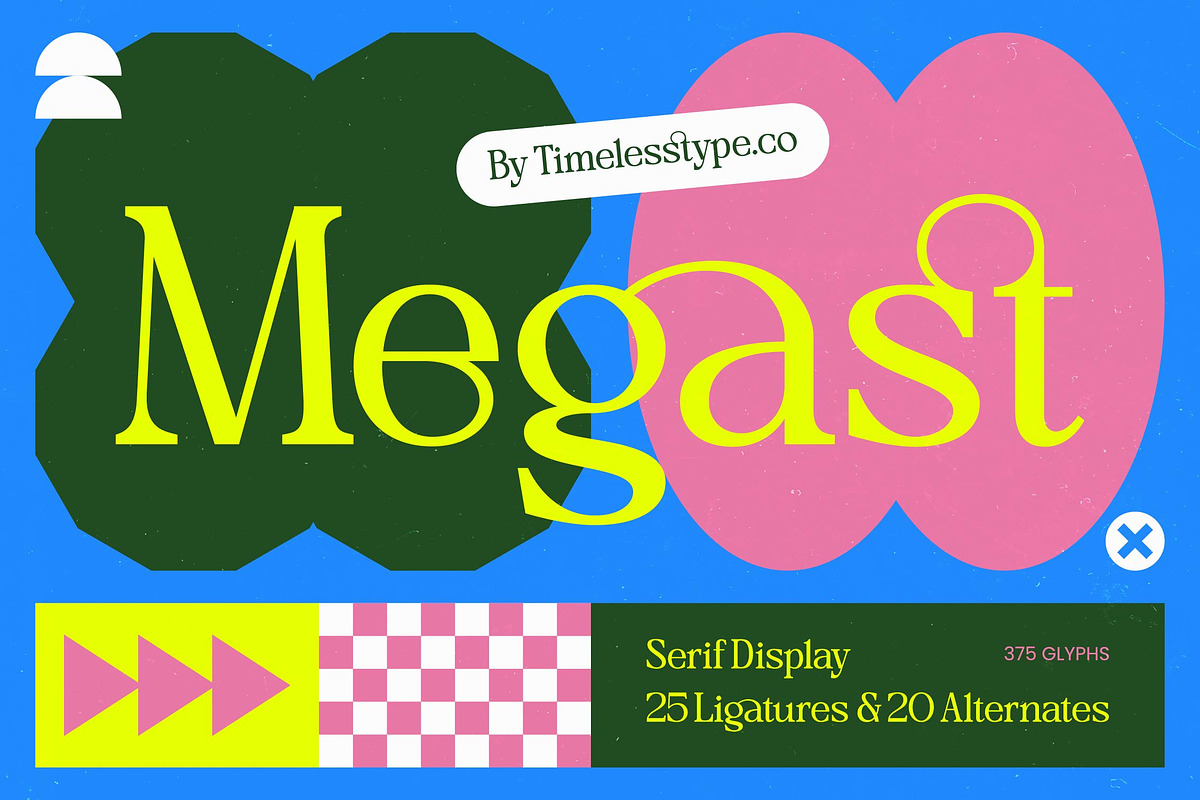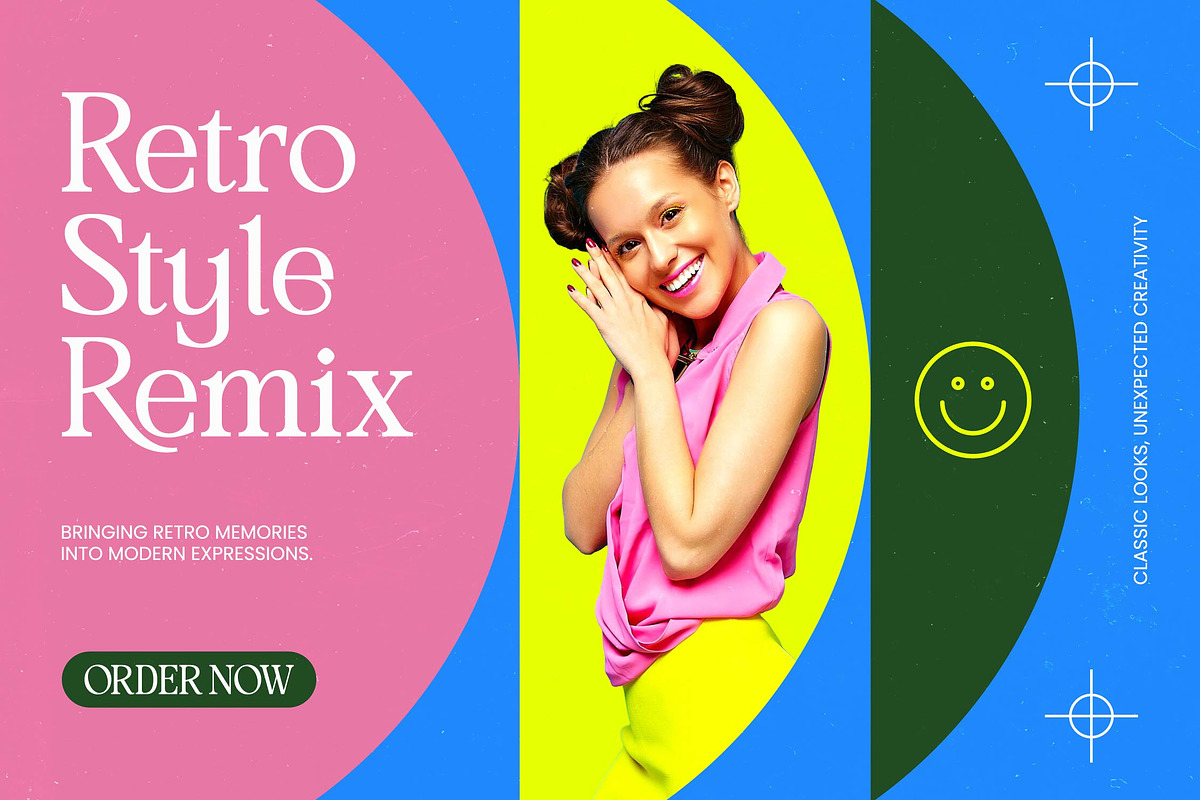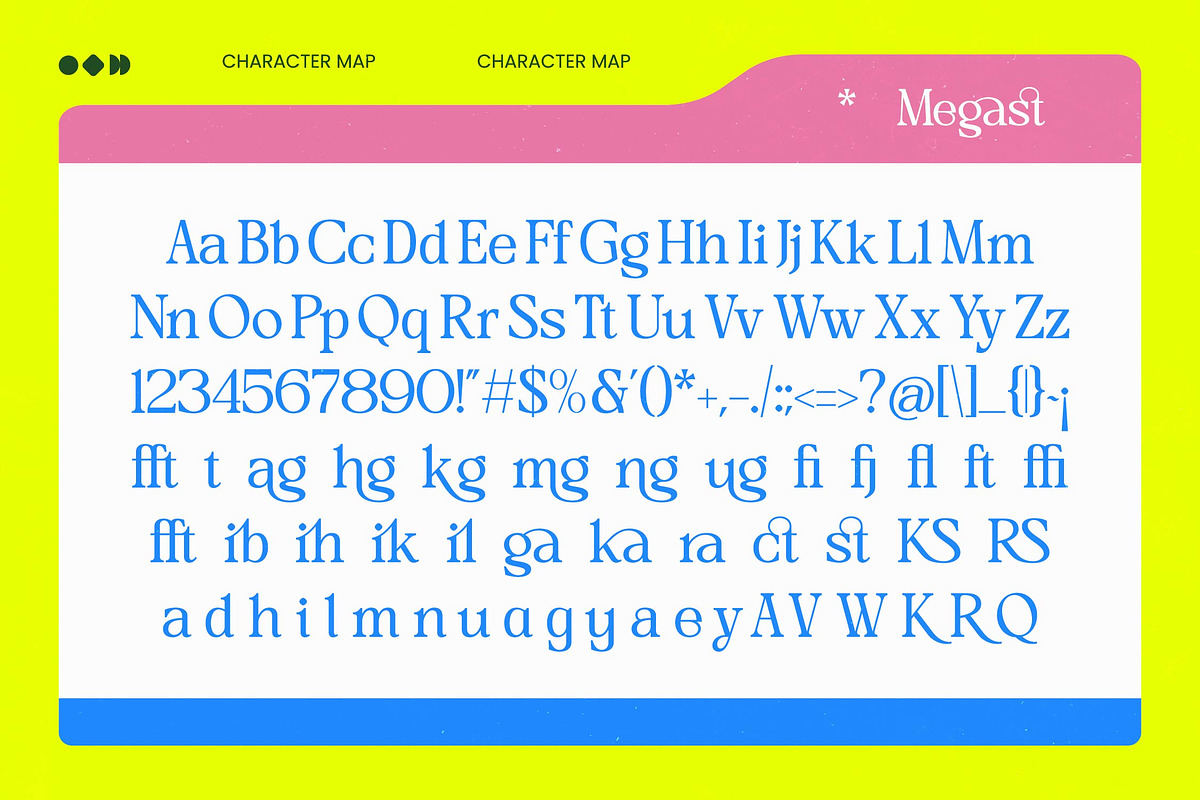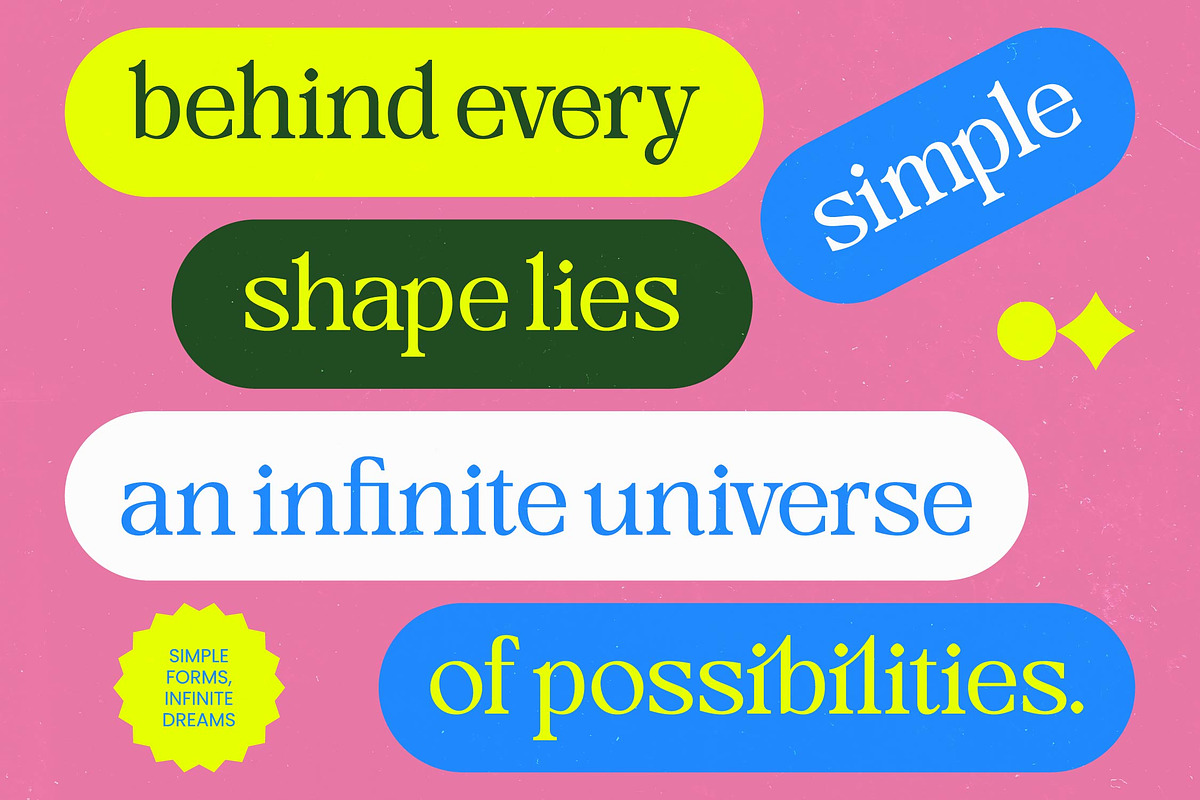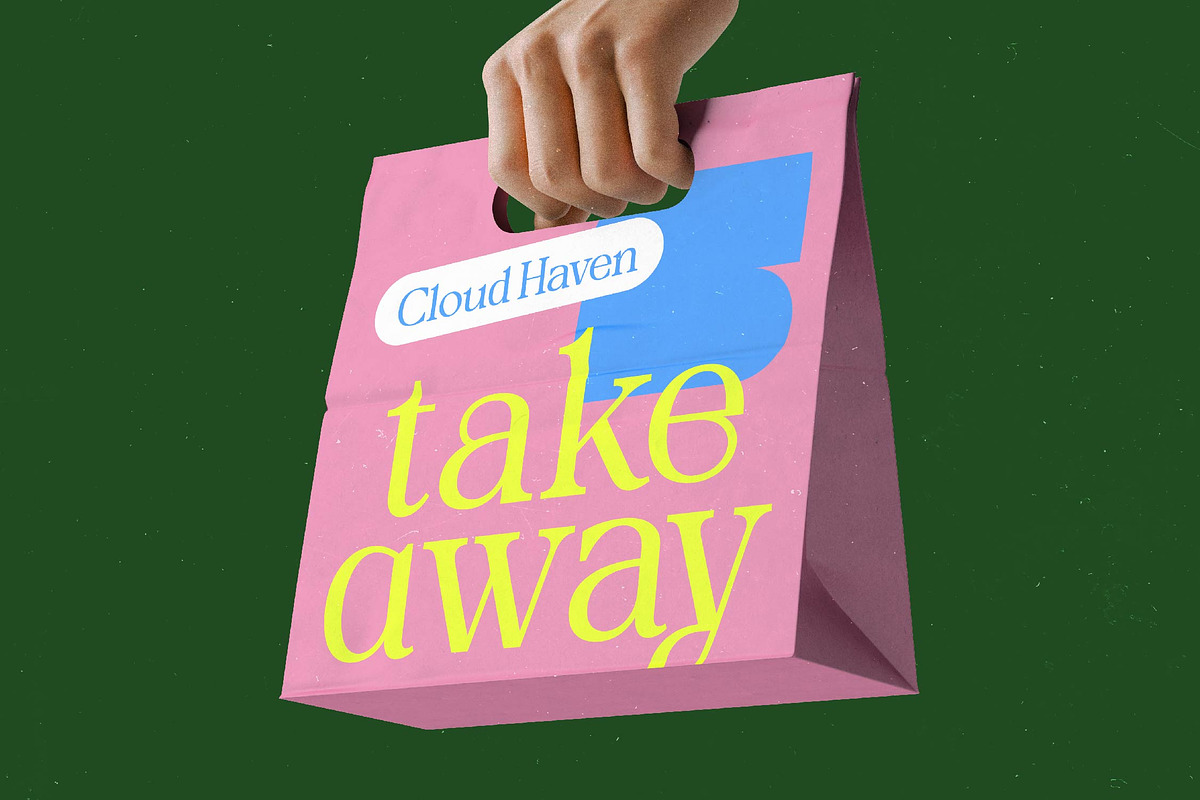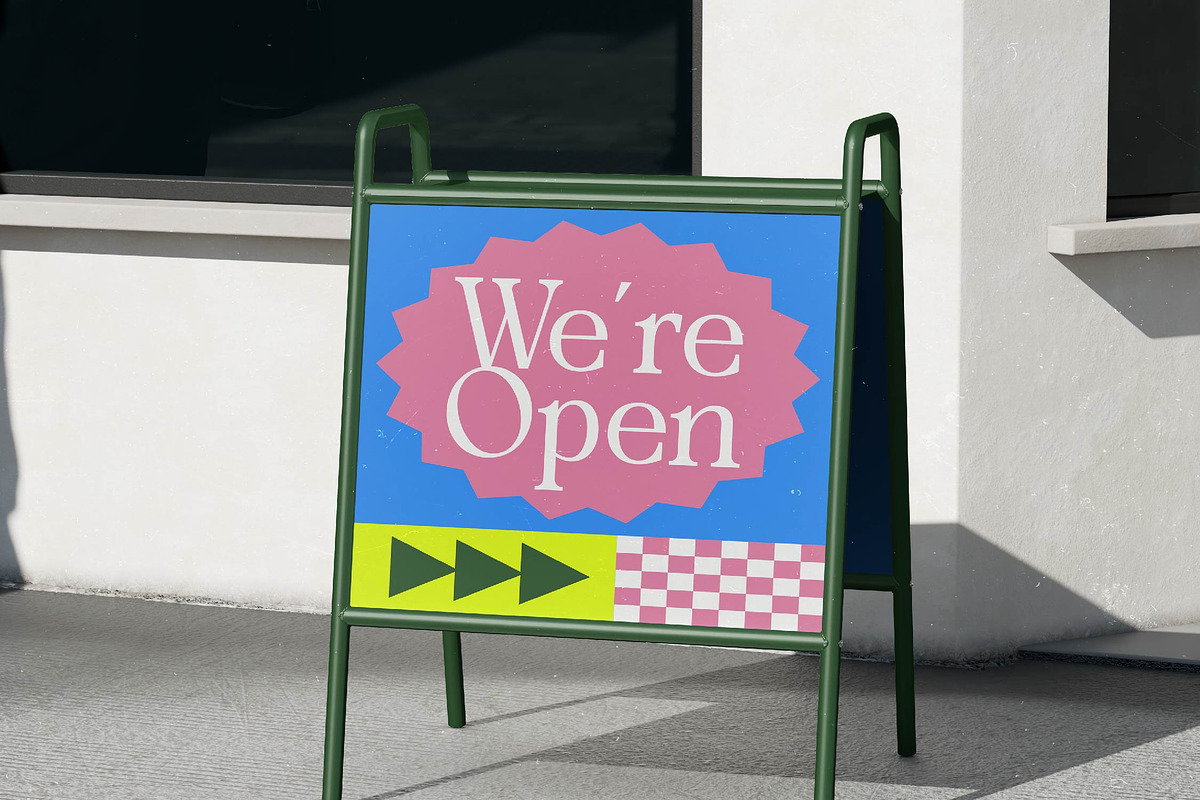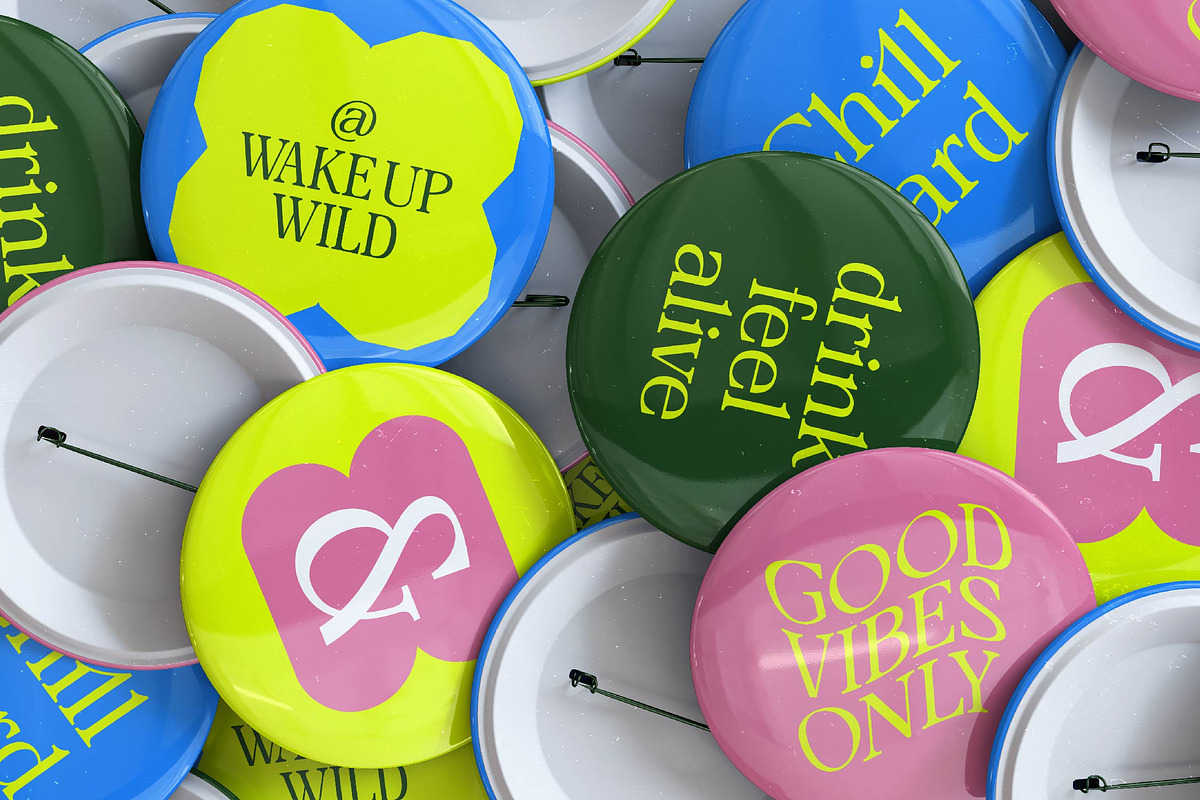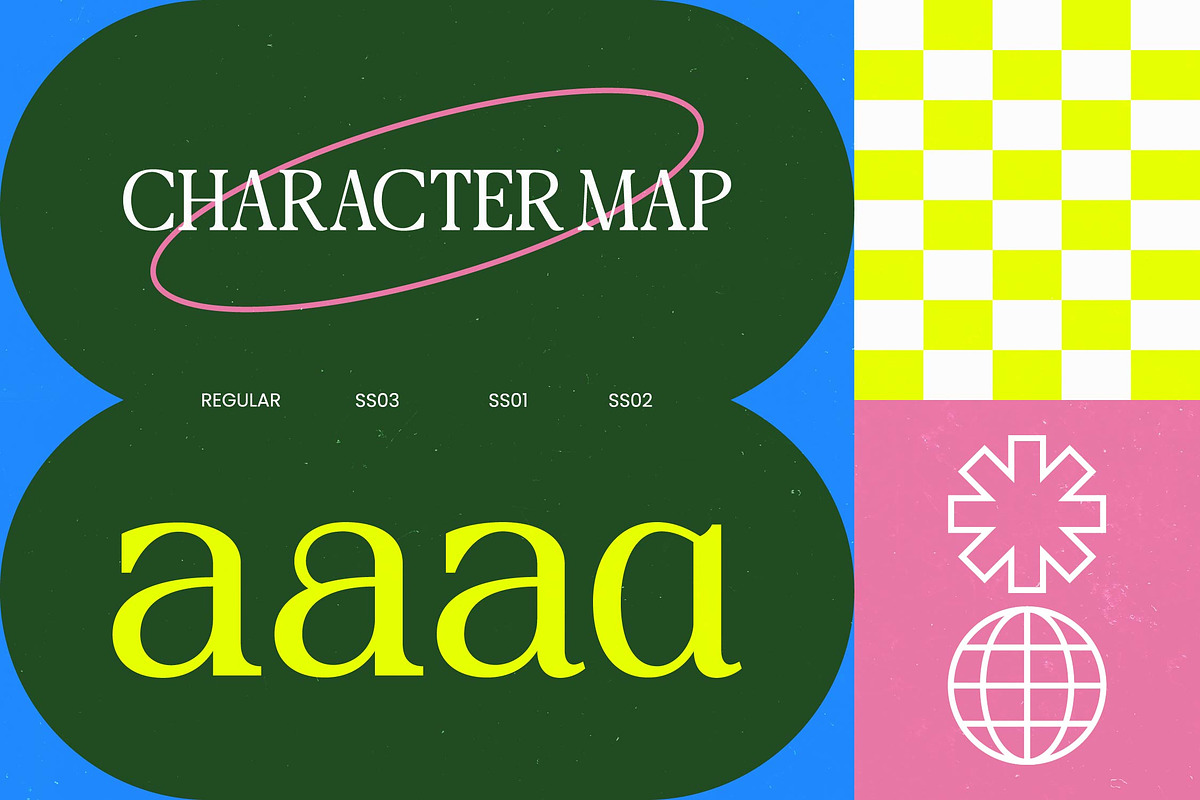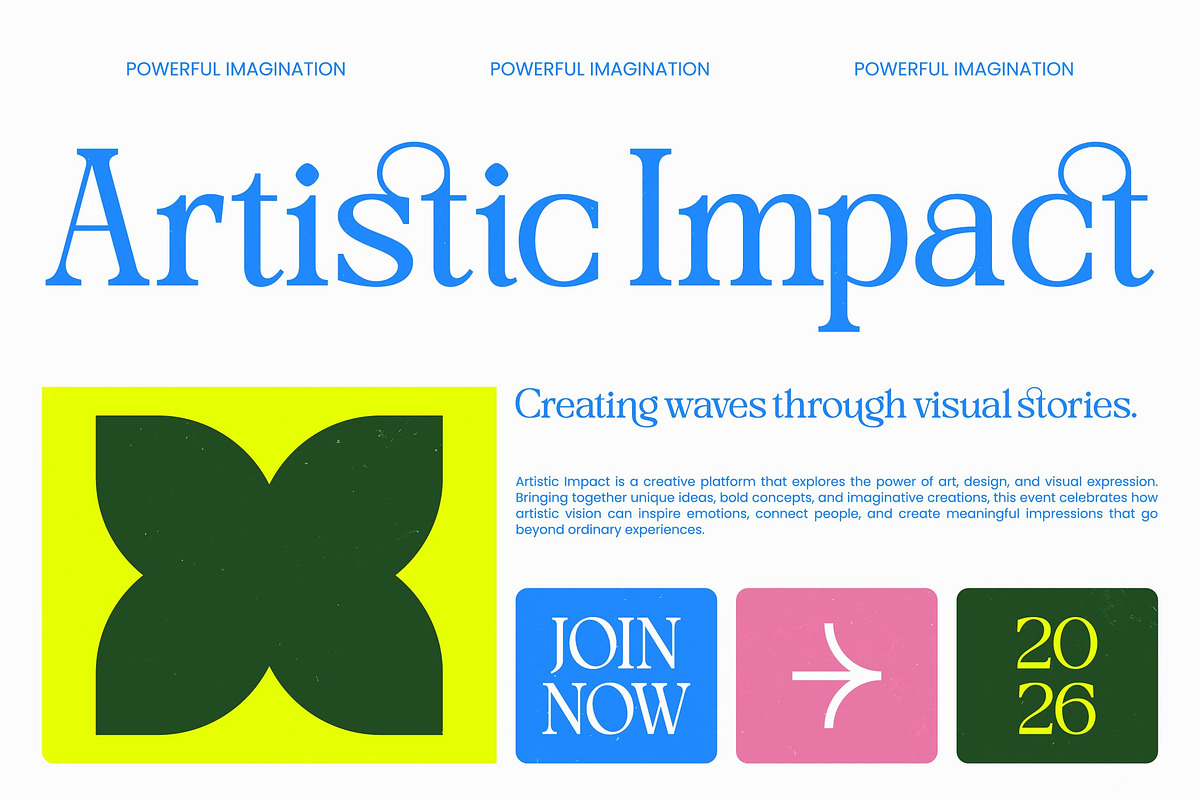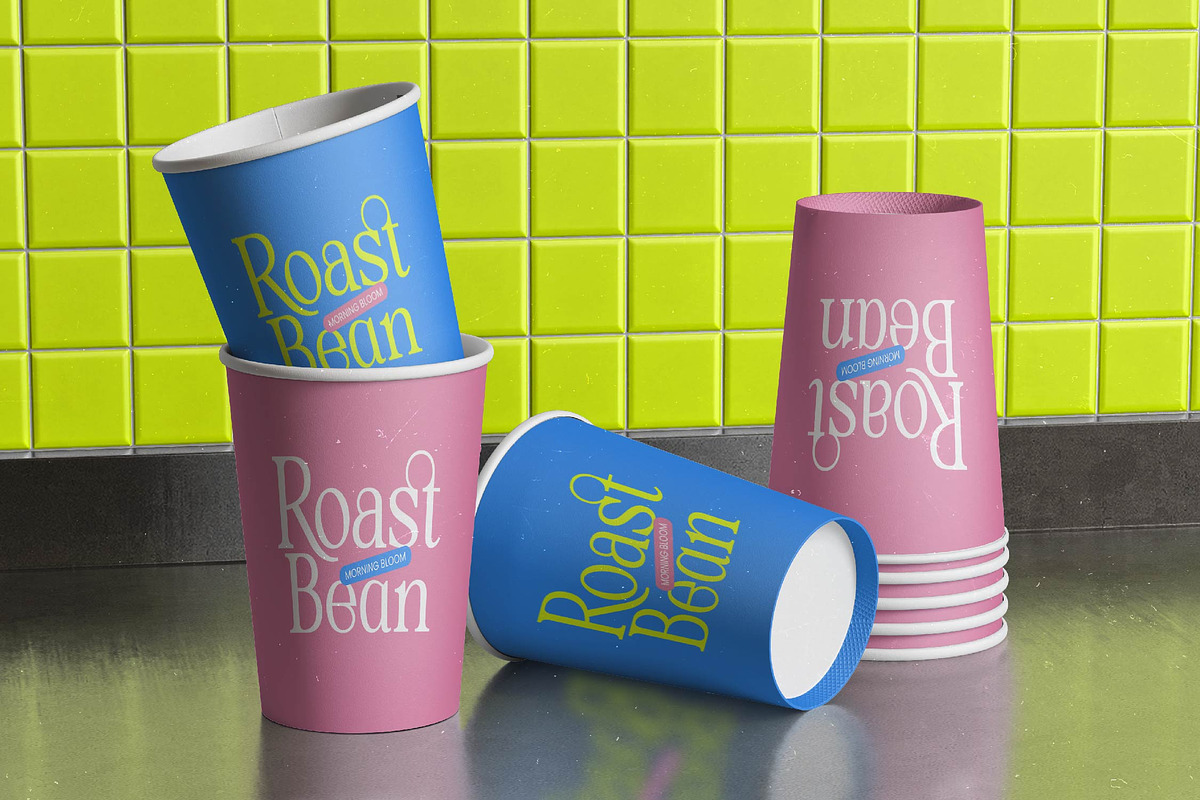
Megast Modern Serif Display
Megast - Modern Serif Display , Elevate your creative vision with a typeface that embodies pure sophistication and timeless grace. Megast - Modern Serif Display is a masterpiece of contemporary typography, blending classic serif elegance with a high-contrast aesthetic that defines luxury. Its sharp terminals and refined curves create a captivating visual rhythm, making it an essential tool for professional designers seeking to convey prestige and modernity in every character.
Master the art of international communication without compromising on high-end style. With its extensive multilingual support, Megast - Modern Serif Display adapts seamlessly across global markets, making it incredibly versatile for international projects. Featuring a robust set of 375 glyphs, including 25 unique ligatures and 20 stylish alternates, this typeface ensures your message remains cohesive and professional across diverse languages and complex layouts.
Experience the pinnacle of versatility across a wide range of premium design applications. Megast - Modern Serif Display is the perfect choice for luxury branding, high-end packaging, and editorial design. Whether you are crafting a fashion logo, a glossy magazine headline, or sophisticated social media graphics, this font provides the artistic flair and bold presence required to dominate the visual landscape of the modern market.
Invest in a professional asset that defines the future of display typography and brand identity. By choosing Megast - Modern Serif Display, you are selecting a timeless typeface that bridges the gap between tradition and innovation. Its impeccable craftsmanship and dynamic character ensure that your portfolio remains visually compelling and market-relevant, offering a superior typographic solution for the most demanding creative briefs.